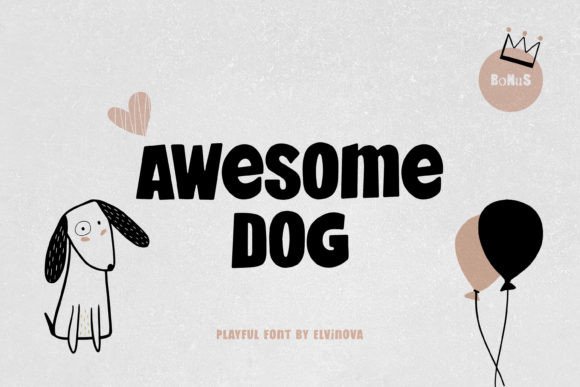
The Awesome Dog Font: A Playful Companion for Your Design Projects
I’ll never forget the time I was working on a project for a children’s book, and I just couldn’t find the right font to match the playful tone of the story. The client wanted something friendly, cheerful, and fun, but not too cartoonish. I spent hours scouring the internet for the perfect font, and then I stumbled upon the Awesome Dog font. It was like a breath of fresh air! ✨
An Honest Review of Awesome Dog
So, what makes Awesome Dog so special? Let’s dive into the good stuff and a few quirks I’ve discovered.
• ✨ Playful and friendly aesthetic that’s perfect for kids’ projects or designs that need a lighthearted touch
• ✅ Easy to read, even at smaller font sizes
• 🎉 Comes with a fun bonus illustration that’s perfect for adding a whimsical touch to your designs
• 🤔 Some letters, like the uppercase “Q” and “J”, might be a tad too playful for very formal designs
• ⚠️ Not ideal for very long blocks of text, as it can get a bit tiresome to read
One of the best things about Awesome Dog is its OpenType features and glyphs. Here are some tips for getting the most out of them:
• Experiment with different stylistic alternates to add visual interest to your text
• Use the glyph panel to access bonus characters and illustrations, like the fun dog illustration that comes with the font
The Story Behind Awesome Dog
Awesome Dog was designed by a talented font designer who wanted to create a font that captured the playful spirit of man’s best friend. The designer drew inspiration from classic cartoons, children’s books, and the joy of playing with a furry friend. 🐶
Author elvinova
Q: What type of projects is Awesome Dog best suited for?
A: Awesome Dog is perfect for greeting cards, quotes, kids’ books, cartoons, posters, t-shirt designs, social media graphics, and more.